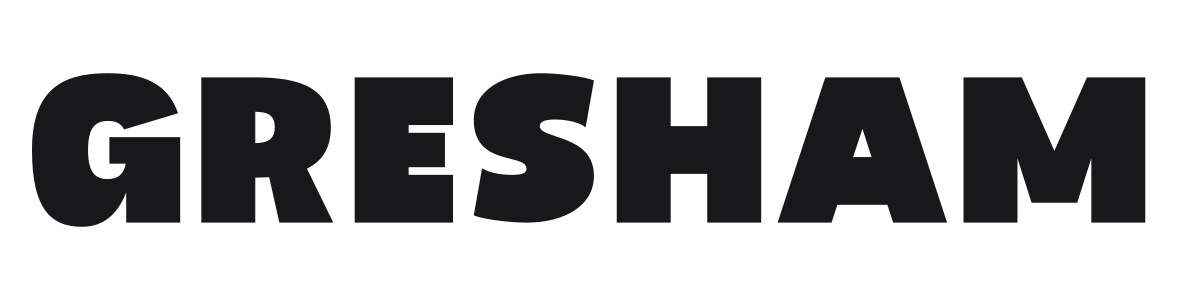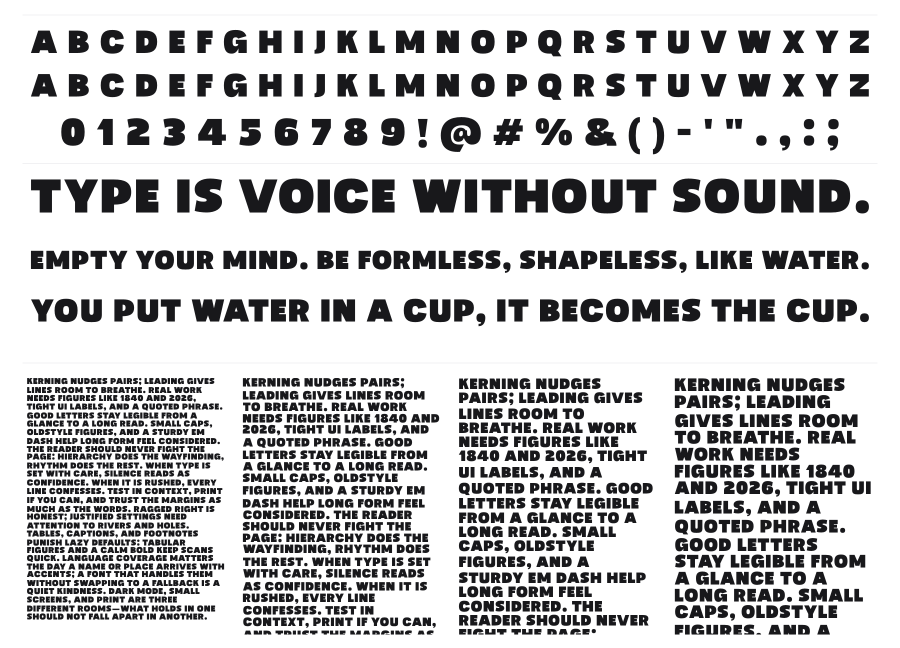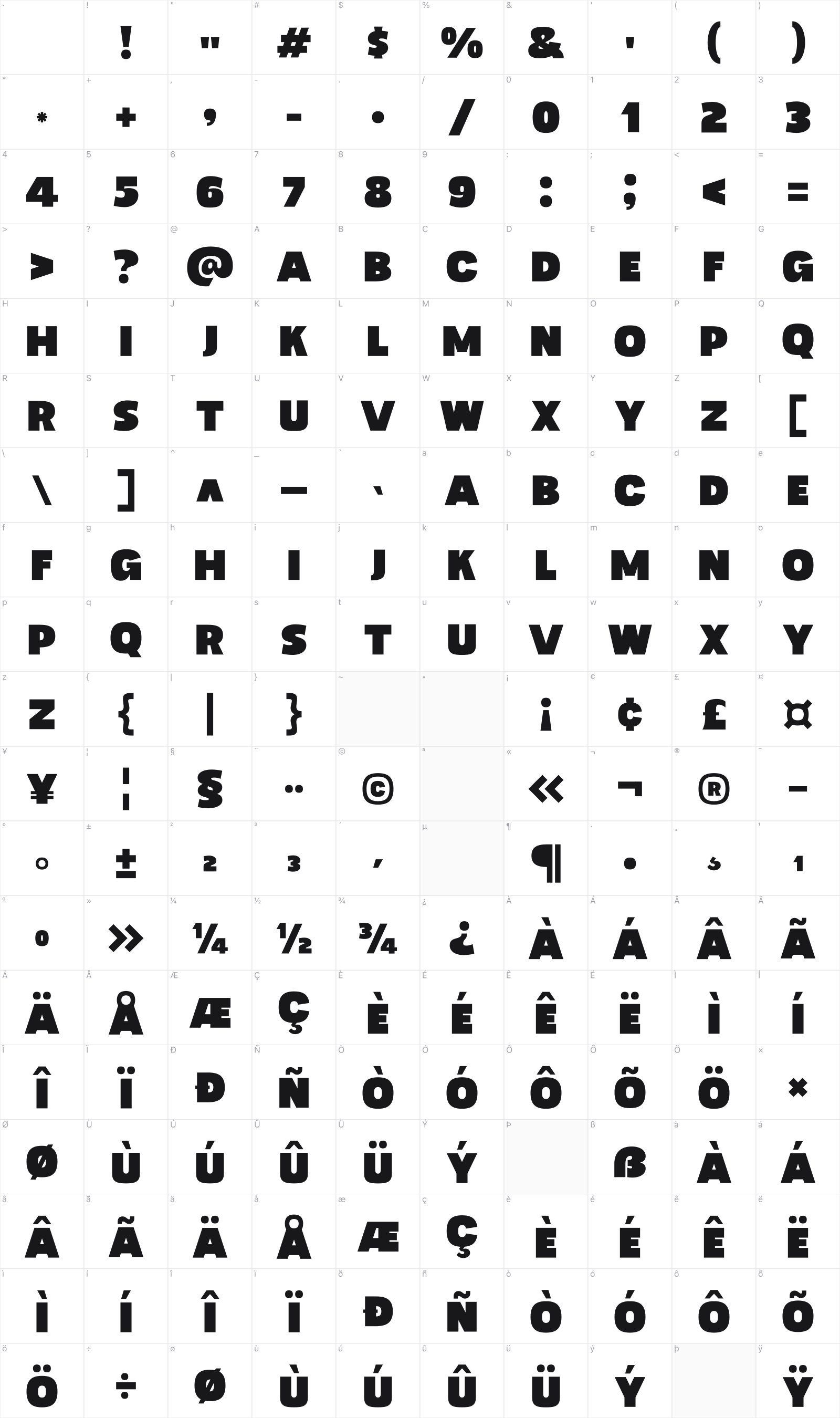
Gresham
Gresham is a heavy, wide grotesque sans with a muscular black weight and subtly rounded stroke endings. Its broad proportions and dense internal spacing give it an almost architectural solidity at headline sizes. Strong presence in poster work, sports branding, and any context where the type needs to hit hard.